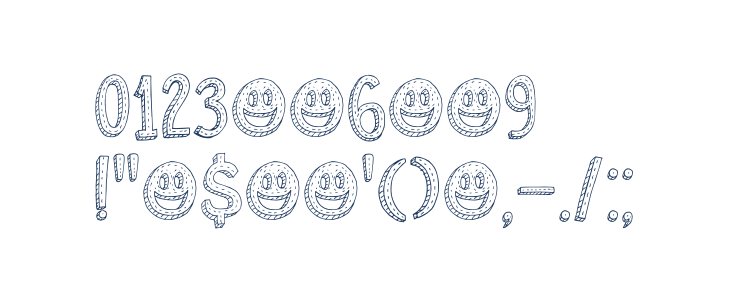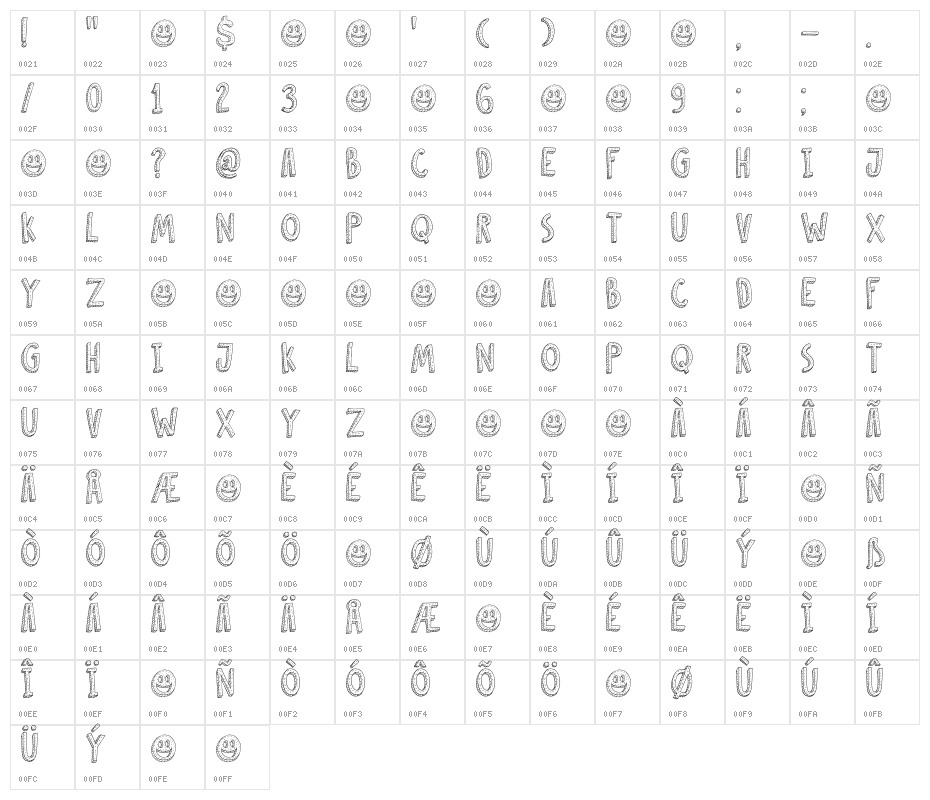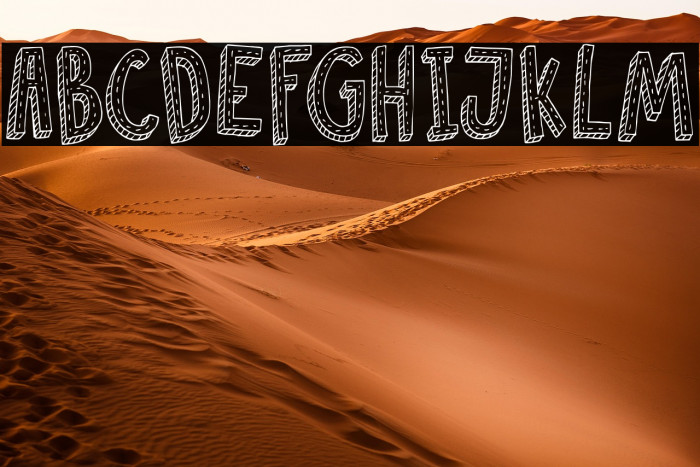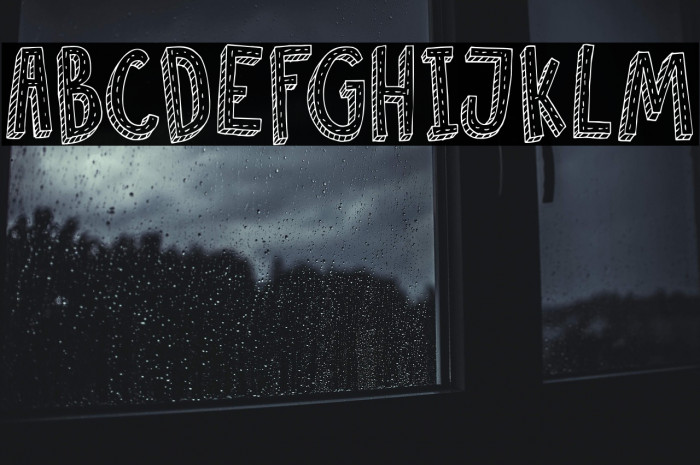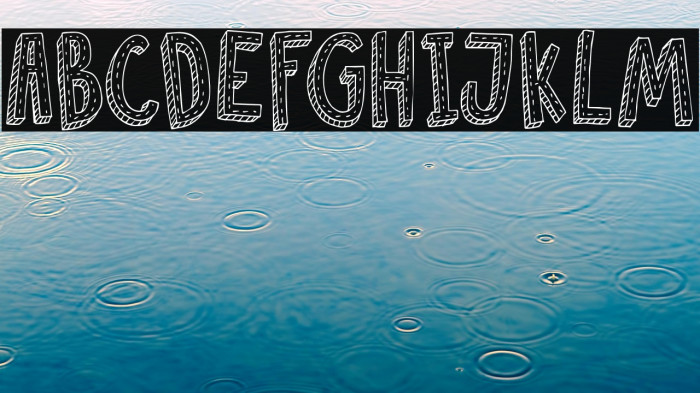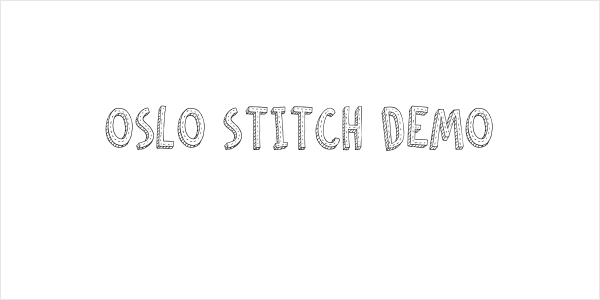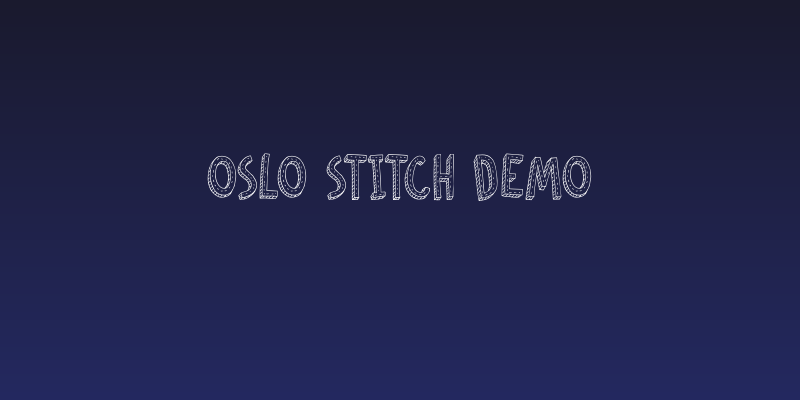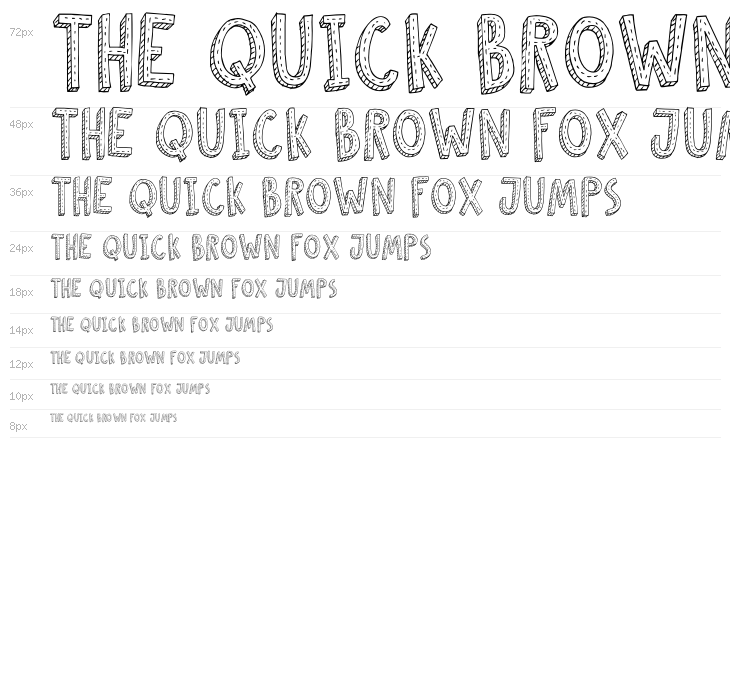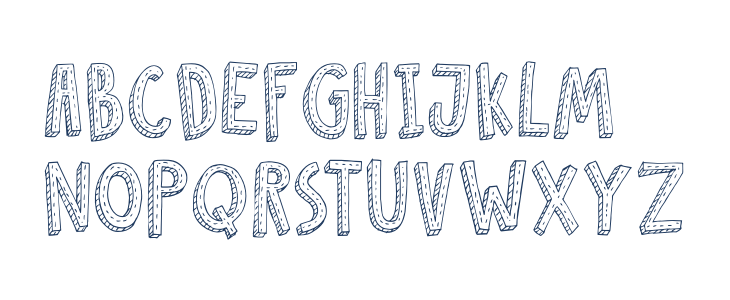
Oslo Stitch DEMO Font
Oslo Stitch DEMO Description
This font features a playful and whimsical design, characterized by a hand-drawn, stitched appearance. Each character is outlined with a dashed line, giving the impression of being sewn onto fabric. The letters are bold and slightly irregular, adding to the casual and fun aesthetic. The font includes both uppercase and lowercase letters, numbers, and a variety of special characters. Its unique style makes it suitable for creative projects that require a touch of personality and charm.
| Overall Style | Whimsical, Playful |
| Proposed Projects | Ideal for children's books, craft projects, greeting cards, and playful branding. |